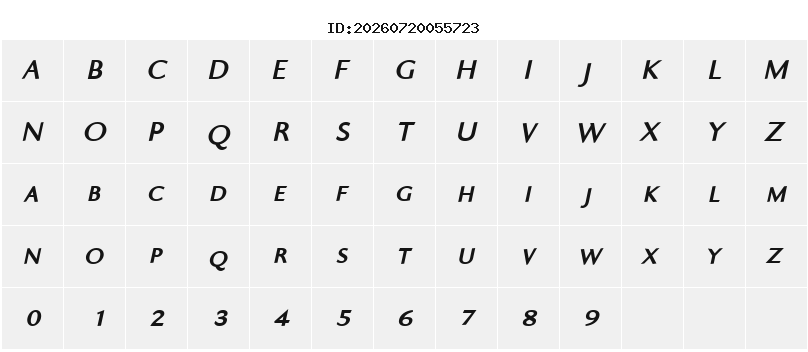
About Ela Sans XBold Caps.ttf
Ela Sans XBold Caps.ttf is a modern, elegant sans-serif font designed for ultimate readability and visual harmony. Perfect for branding, headlines, web design, and print materials.